1. George Font
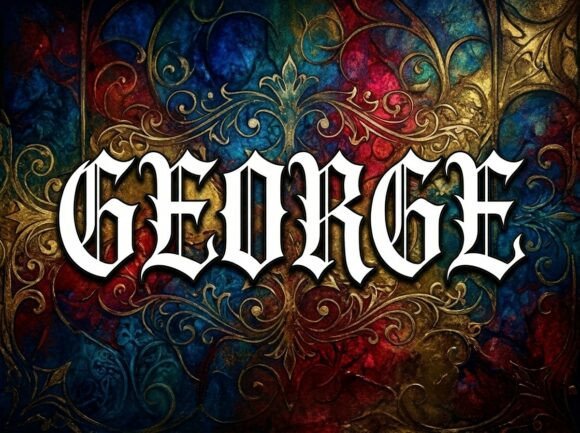
George has a classic dark academia font style with elegant serif details that work beautifully for book covers, quotes, branding, and vintage-inspired designs. It gives any project a timeless scholarly feel.
2. Burke Font
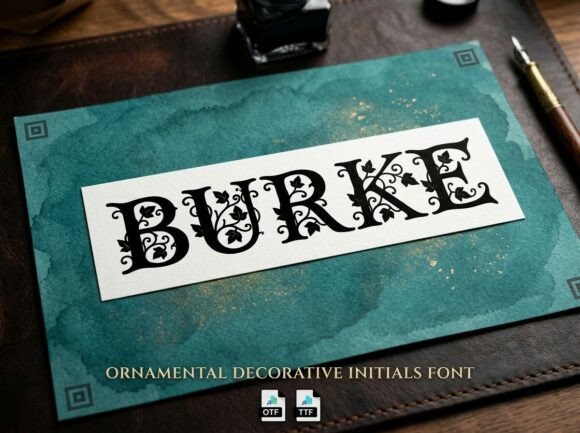
Burke combines bold gothic character shapes with a clean vintage aesthetic, making it perfect for posters, logos, and moody social media graphics.
3. Carolyn Font
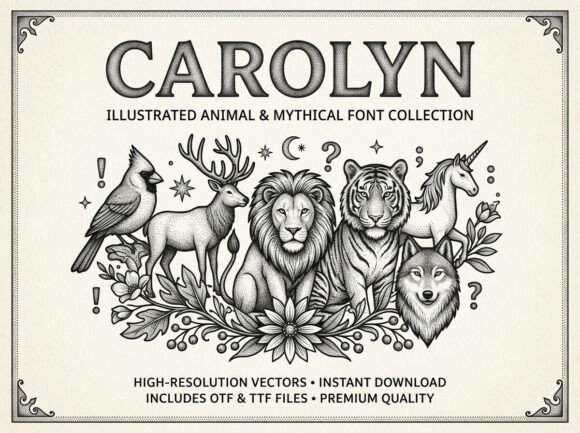
4. Aspen Font
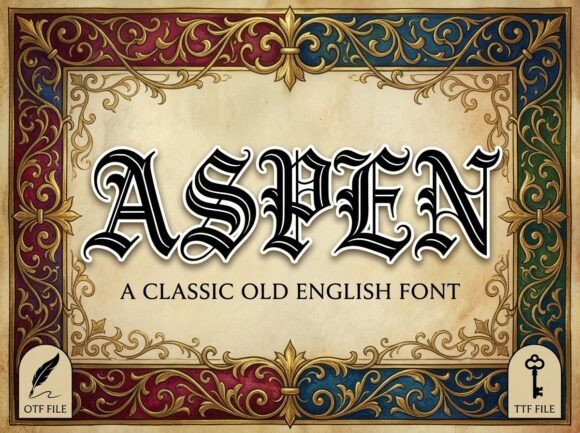
Aspen has a refined serif look that feels modern while still fitting perfectly into the dark academia font style aesthetic. Great for editorial layouts and Pinterest graphics.
5. Jinxed Glyphs Font
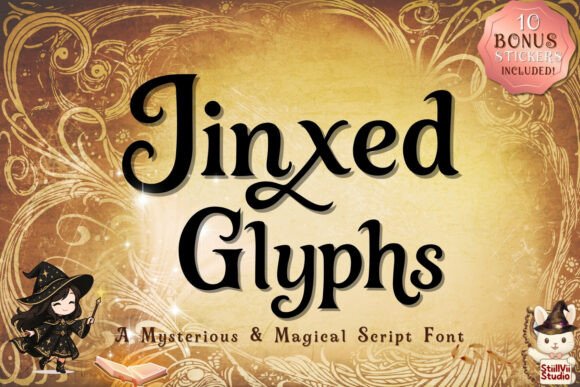
Jinxed Glyphs has a mystical gothic feel that works perfectly for fantasy branding, Halloween projects, book covers, and magical-themed designs.
6. Alice Font
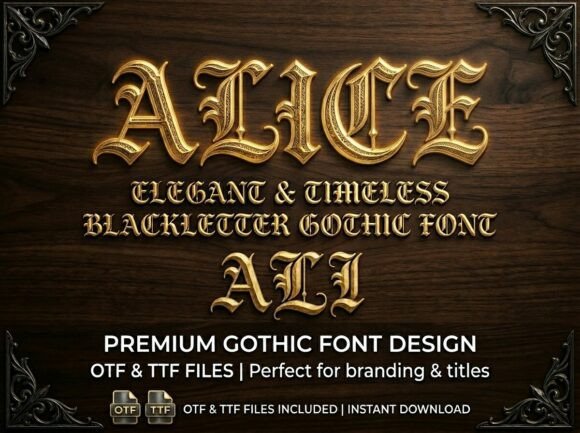
Alice blends romantic handwritten curves with a vintage-inspired look, making it ideal for aesthetic journals, planners, and social media quotes.
7. Heritangle Font
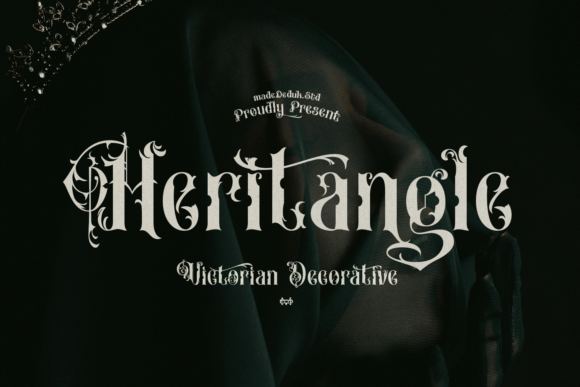
Heritangle has a bold old english font appearance that instantly gives designs a historic, scholarly, and luxurious atmosphere. Perfect for logos and packaging.
8. Midnight Flora Font
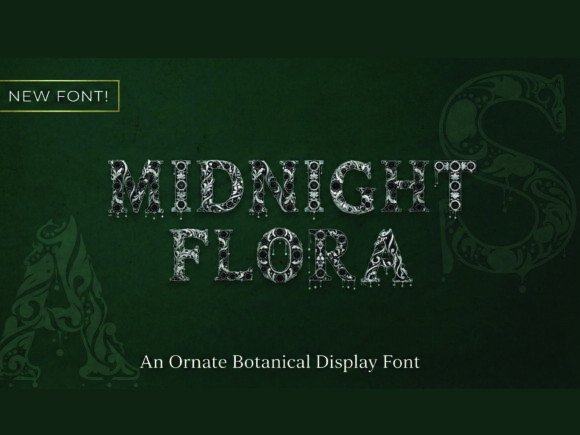
Midnight Flora combines elegant typography with floral details, creating a dreamy dark academia style for invitations, stickers, and feminine branding.
9. Brooke Font
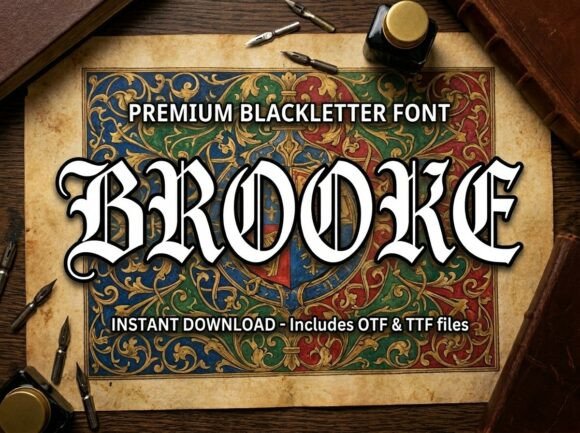
Brooke is a clean and stylish serif font that works beautifully for minimalist dark academia branding, blogs, and printable designs.
10. Wednesday Font
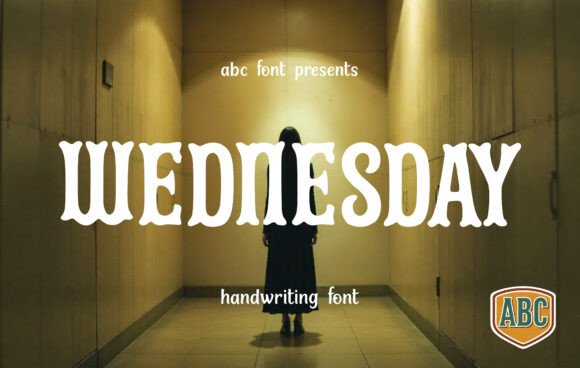
11. Michael Font
Michael is an elegant handwritten font with a natural flowing style that works well for planners, invitations, and aesthetic quote designs.
12. Arcane Spellbook Font
Arcane Spellbook is a dramatic fantasy-inspired gothic font that instantly adds a magical antique look to branding, gaming projects, and themed artwork.
13. Arcane Spellbook Font
Kate features soft handwritten curves with a timeless vintage touch, making it a beautiful choice for feminine branding and lifestyle content.
14. Raven Script Font
15. Verbena Font
Verbena has a romantic vintage serif style that works beautifully for book covers, editorial layouts, and elegant dark academia branding projects.
16. Gloomy Arcade Font
Gloomy Arcade combines gothic details with a playful retro edge, making it perfect for spooky posters, alternative branding, and moody digital artwork.
17. Thursday Font
Thursday features soft serif curves with a timeless literary feel that looks stunning in journals, Pinterest graphics, and aesthetic blog designs. This is one of my go-to fonts for planner spreads – it pairs especially well with a physical A5 dot grid journal if you’re printing inserts and want the typography to carry through to a real notebook.
18. Gothic Font
Gothic is a dramatic old english font that instantly adds a medieval and historic atmosphere to posters, logos, and statement typography.
29. Loyaltos Font
Loyaltos combines bold gothic-inspired details with a modern vintage feel, making it perfect for logos, posters, apparel designs, and dark academia projects.
30. Christmas Lovers Font